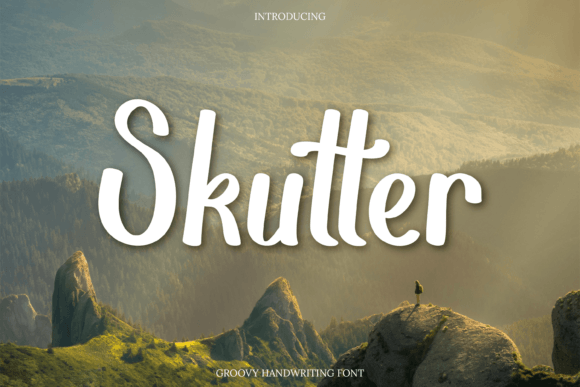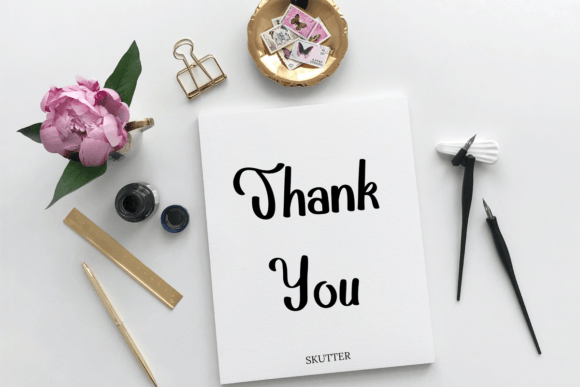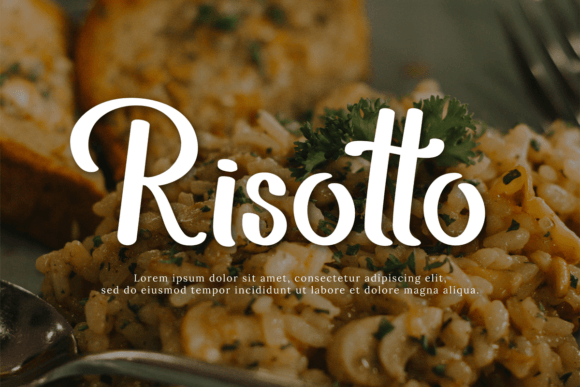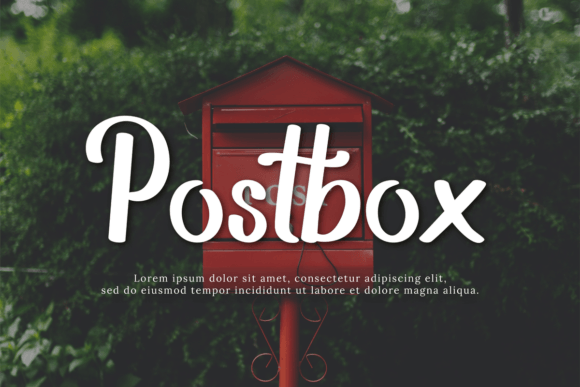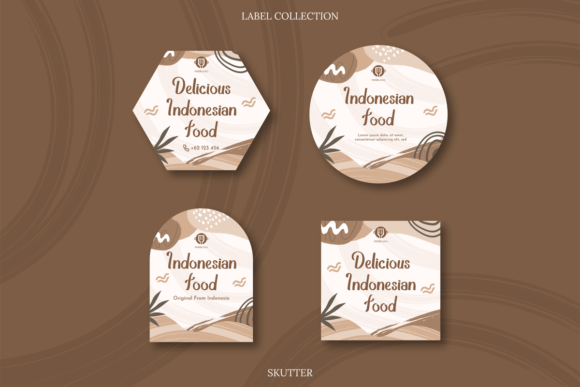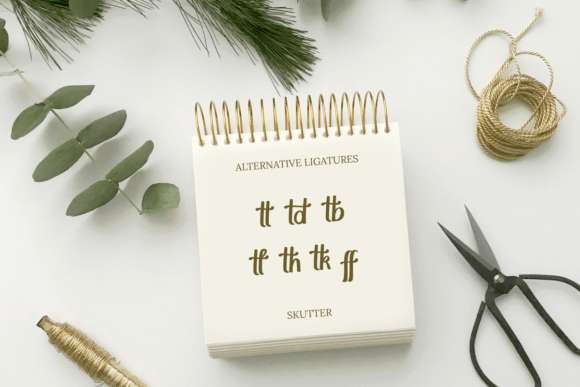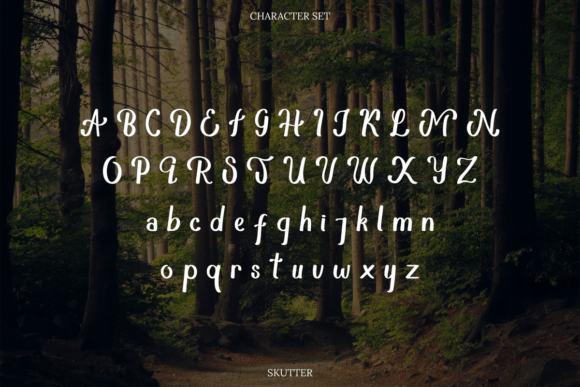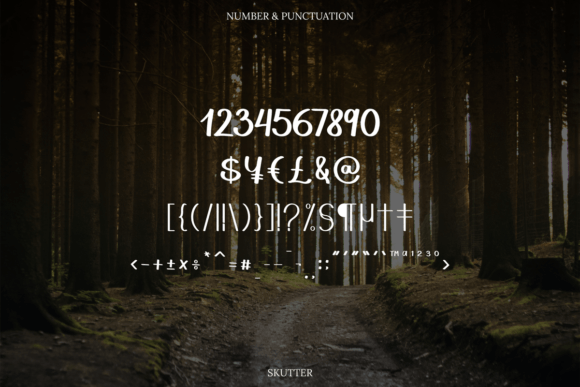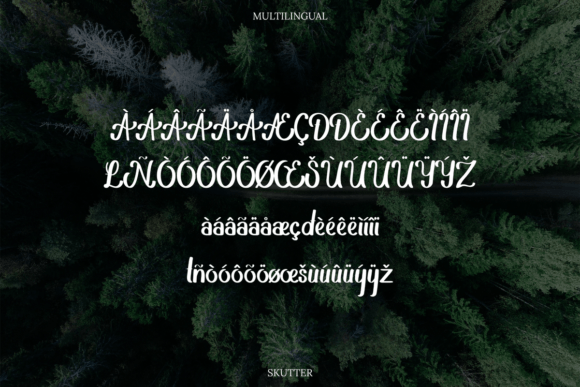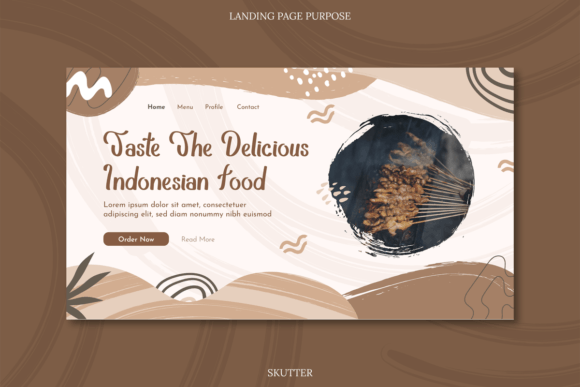
Skutter Font
Presenting Skutter, a captivating handwritten font that exudes retro charm with its semi-script characters. Skutter has a bold and cursive side that effortlessly channels nostalgic vibes, making it completely appropriate for a wide range of designs. With its vintage and thick appearance reminiscent of the 90s, Skutter carries a seductive and authentic appeal, making it particularly suitable for posters, café designs, table menus, displays, and various other creative projects.
The retro essence of Skutter is evident in its semi-script characters, adding a touch of nostalgia to your designs. The bold and cursive elements enhance the overall retro vibe, making it an ideal choice for projects that aim to capture the essence of a bygone era.
Skutter’s bold and authentic style makes it especially suitable for posters, where it can stand out and grab attention. Whether you’re creating promotional materials for events or designing wall art, Skutter brings a unique and eye-catching appeal.
For café designs and table menus, Skutter’s vintage charm adds a distinct personality. It creates an atmosphere that resonates with the aesthetic of the 90s, making it a compelling choice for establishments seeking a retro and inviting ambiance.
In display designs and other creative projects, Skutter’s versatility shines through. Its bold and cursive elements provide a dynamic visual impact, making it well-suited for a variety of applications that demand a touch of authenticity and seduction.
Embrace the retro allure of Skutter as it transports you to the charm of the 90s. Let it infuse your designs with a sense of nostalgia, and allow its bold and cursive side to create a unique and captivating aesthetic. Whether you’re designing posters, café materials, or displays, Skutter is your go-to font for adding an authentic touch of retro vibes to your projects.